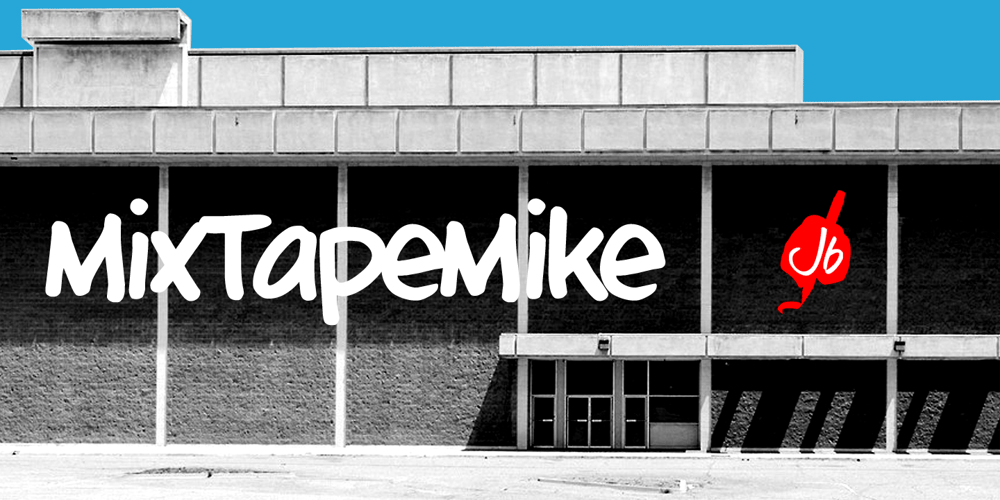
MixtapeMike
MixtapeMike font
MixtapeMike Font Family was designed by Jeroen “Joebob” van der Ham and published by JOEBOB graphics. MixtapeMike contains 1 styles and family package options. The way I used the write songs on a cassette-tape case, turned into a font for you.